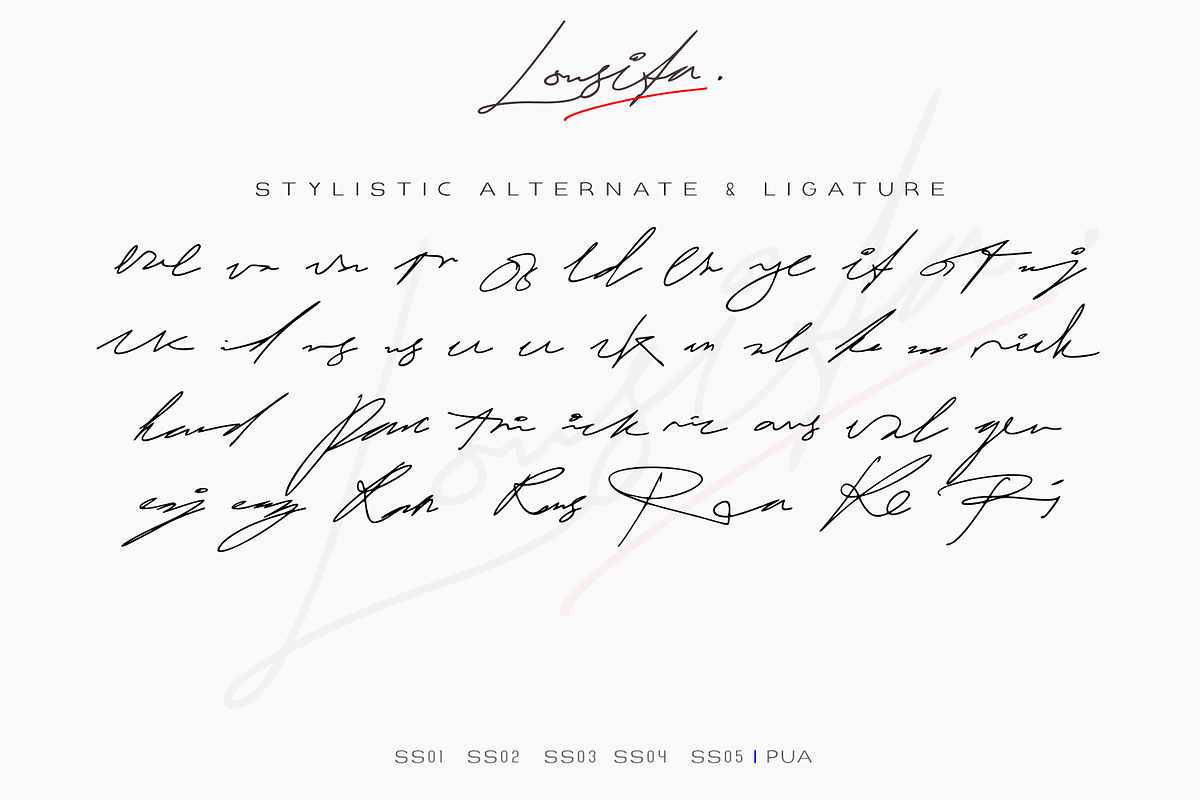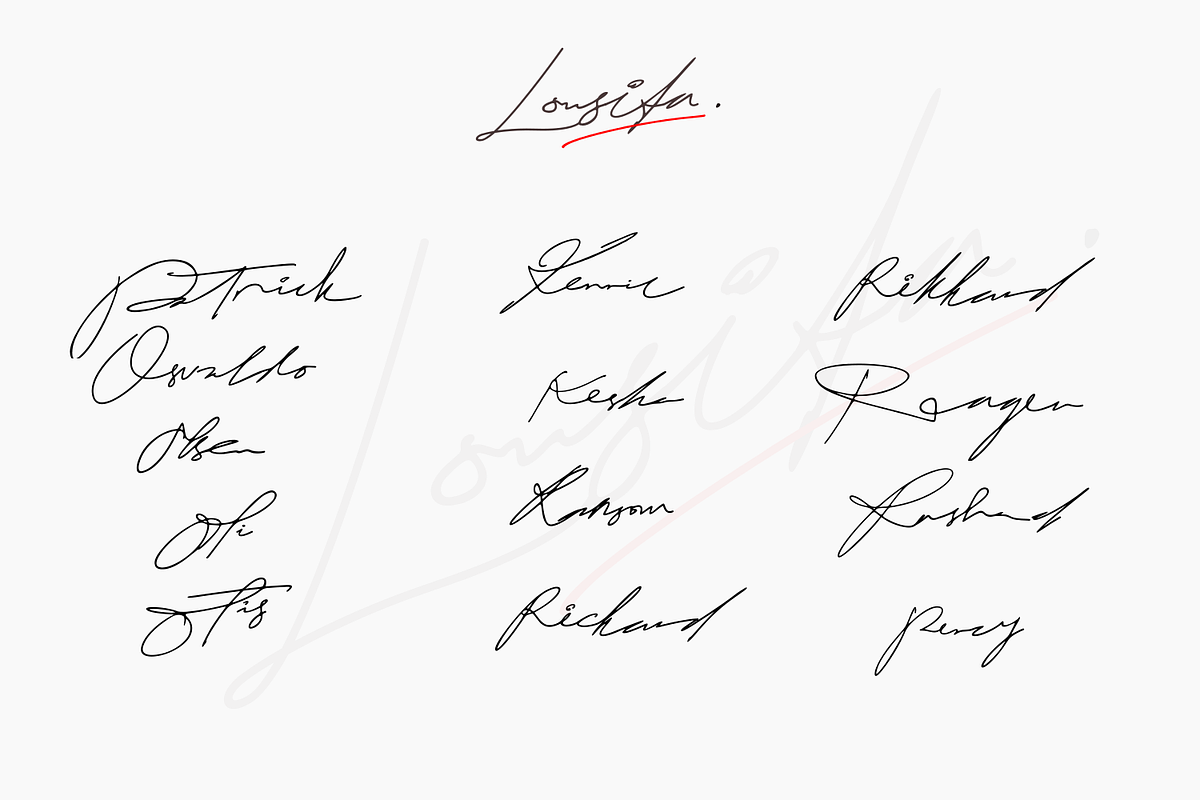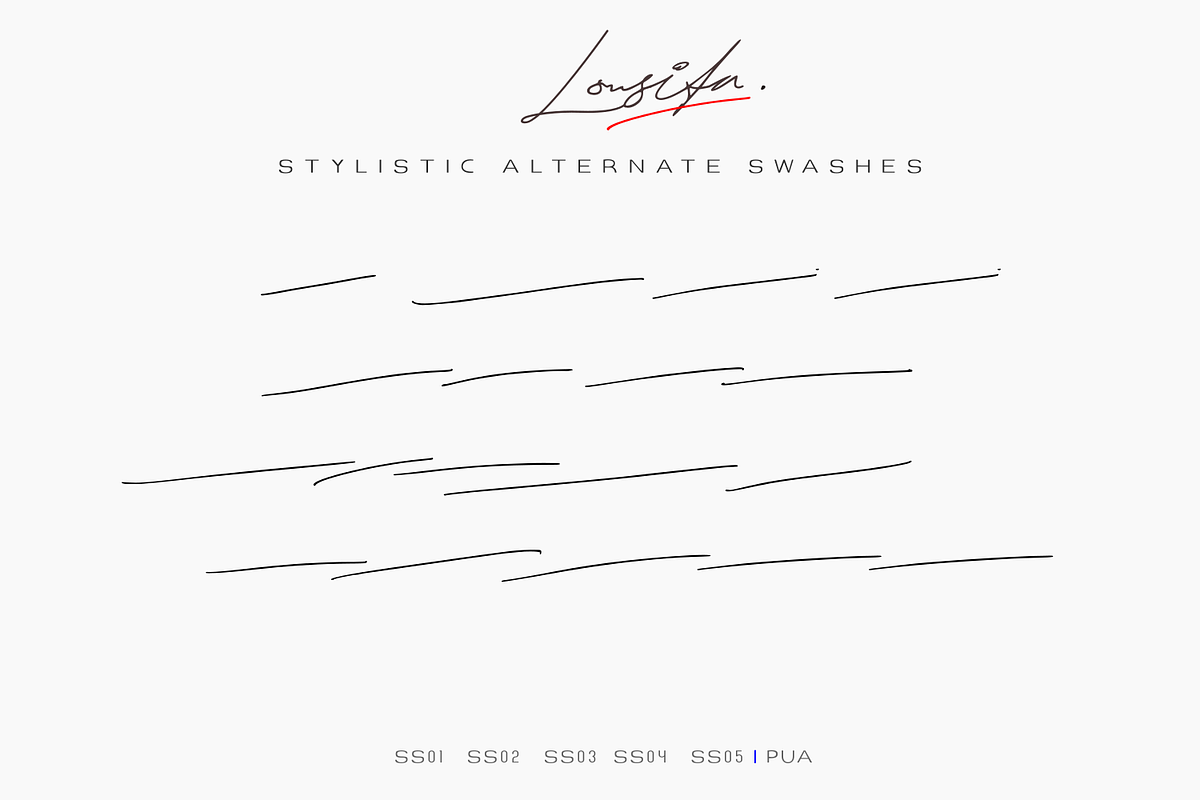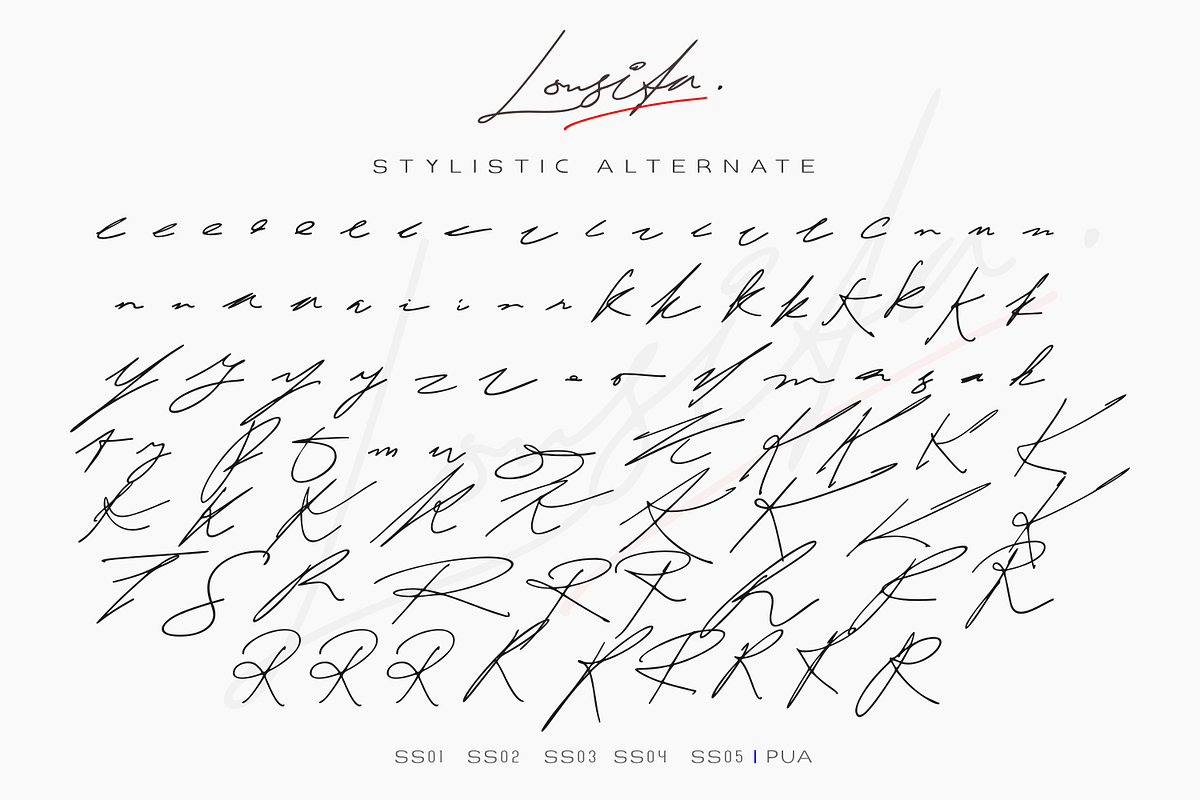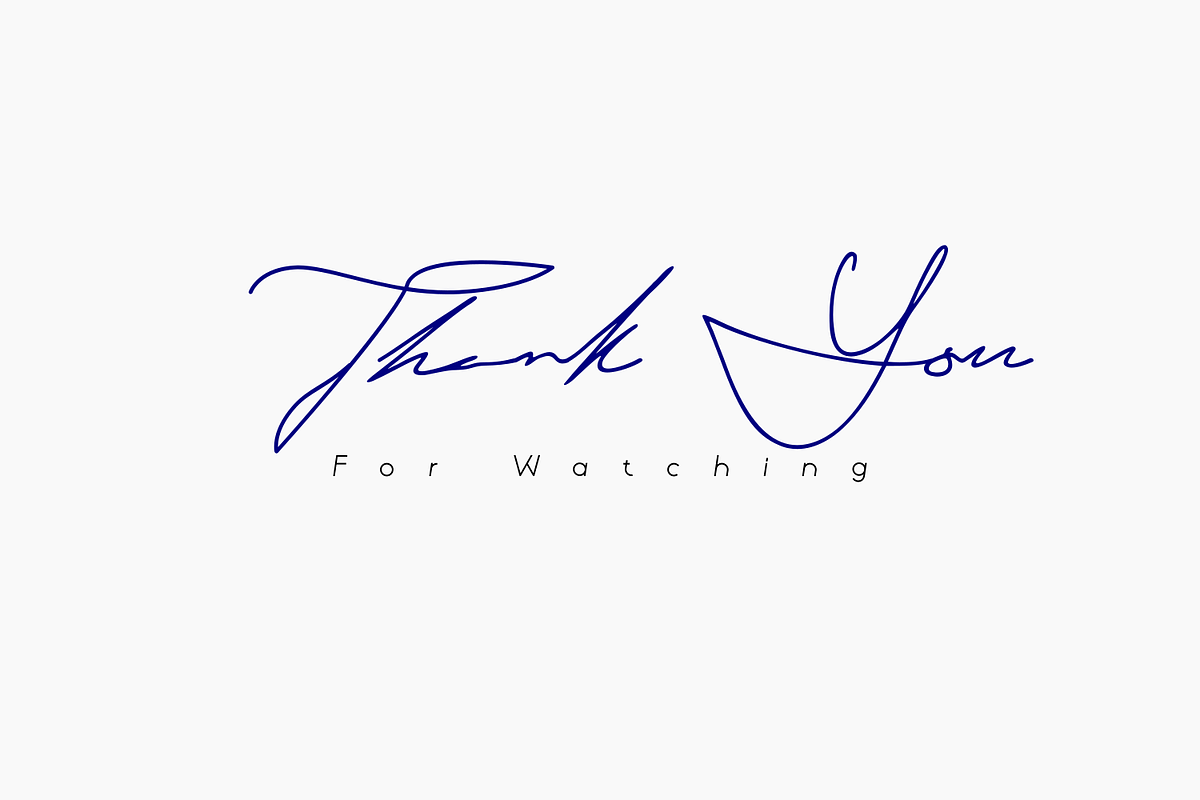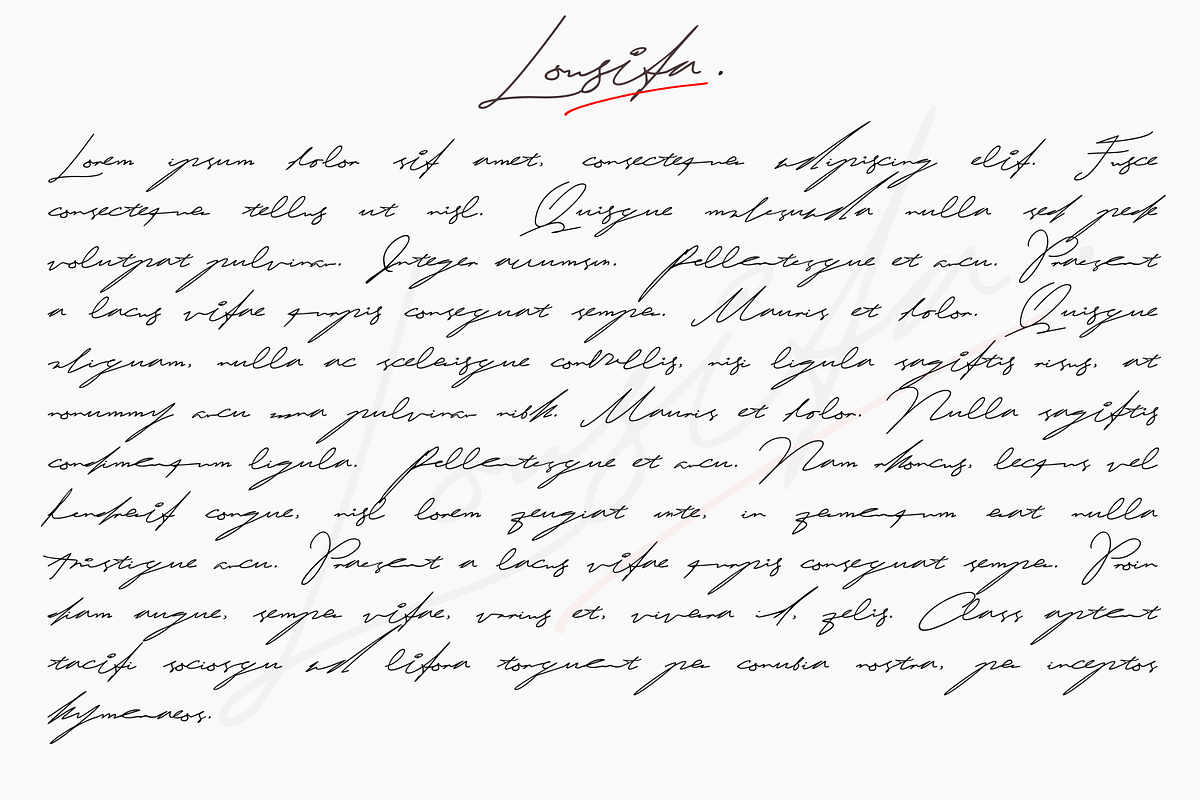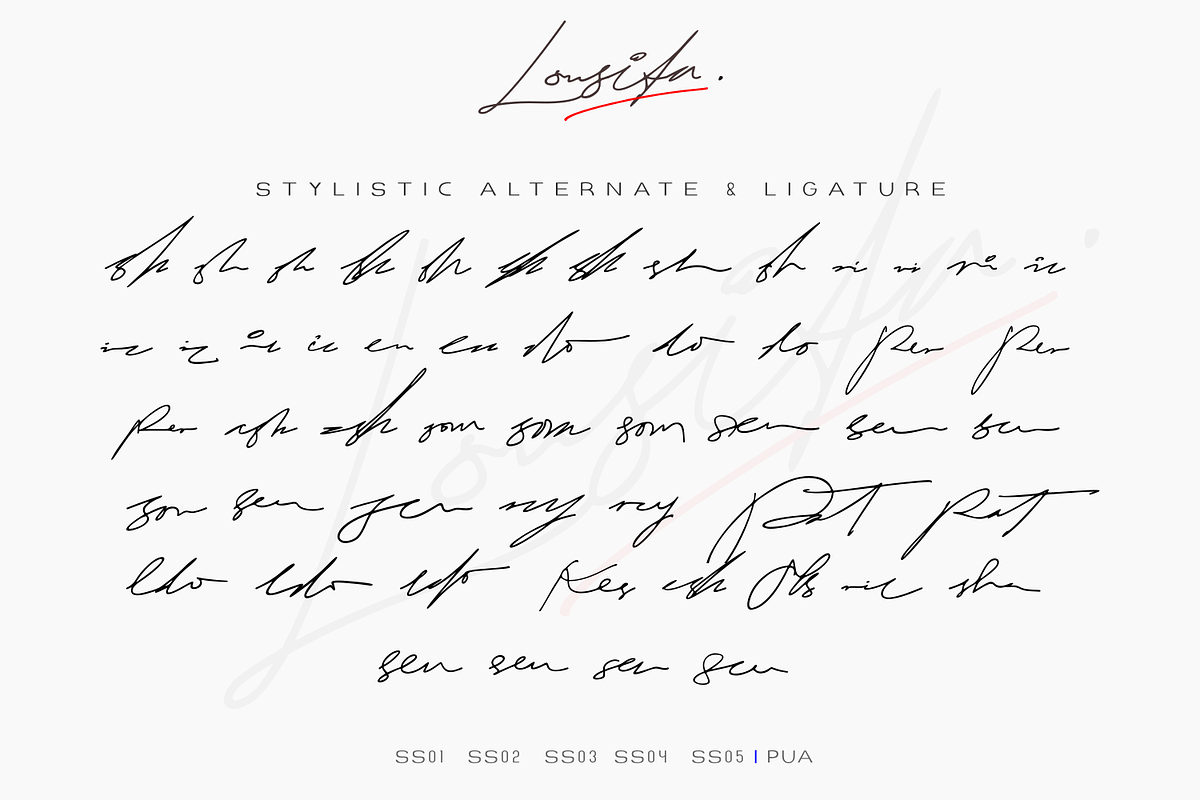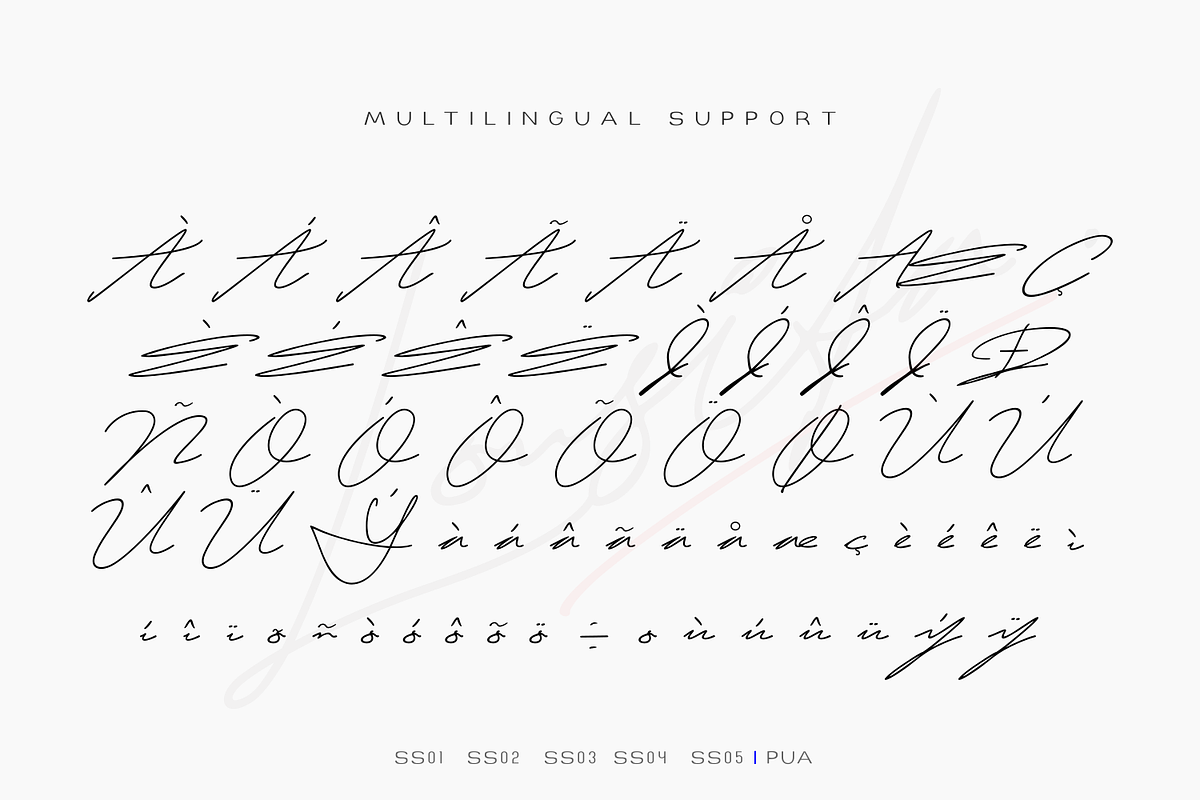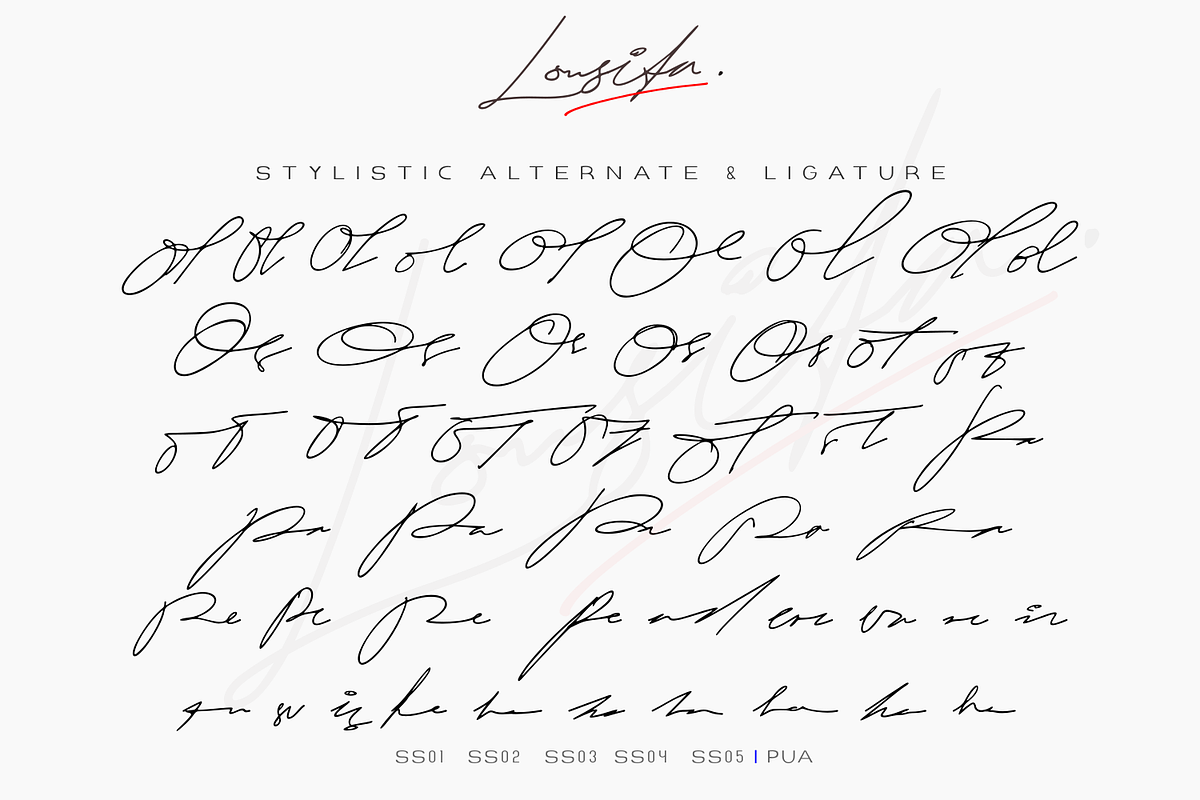
Lousita | Signature Script
Hello Ladies and Gentlemen .. Introduce Lousita Signature Script. This is perfect for your feminine design, you can also make a branding such as cosmetics products, Branding photography, invitation designs or your trademark. Lousita is an elegant and flowing handwritten font. It is PUA encoded which means you can access all of the glyphs and swashes with ease! It features a varying baseline, smooth lines, gorgeous glyphs and stunning alternates. It maintains its classy calligraphic influences while feeling contemporary and fresh. Fall in love with this font and bring your projects to the highest levels!
Available: -Uppercase -Lowercase -Numeral and punctuation -Multilingual support -Stylistic ligature : complete 2 ligatures and several 3 ligatures -Stylistic character alternate -access with PUA encoded.
Stylistic Ligature : K Ol ol Ol Os Ot Ol Pa Pe erc va rc ic tu sv R Re Ra ad ard is om ar en er cy Ri es is cs is he ha sh do Per ash som sen rcy Pat ldo Kes esh Ols ric sha val va ld ea ye it ot uj ck id rs us cc an al he ur rick hard Parc tri ick ric aus val gen eaj eag Ran Rans Rea e c n a i k y z o d m r h f P O T S R Pi
Stylistic Alternate : K Ol Os ot Ot Pa Pe Y va ic R Re Ra ad is om en cy Ri es is ha sh Per ash som sen rcy Pat ldo Kes esh Ols ric sha tr k o y z Ol Os Pa Pe Re Ra Pat Per K O P R
SS01 SS02 SS03 SS04 SS05